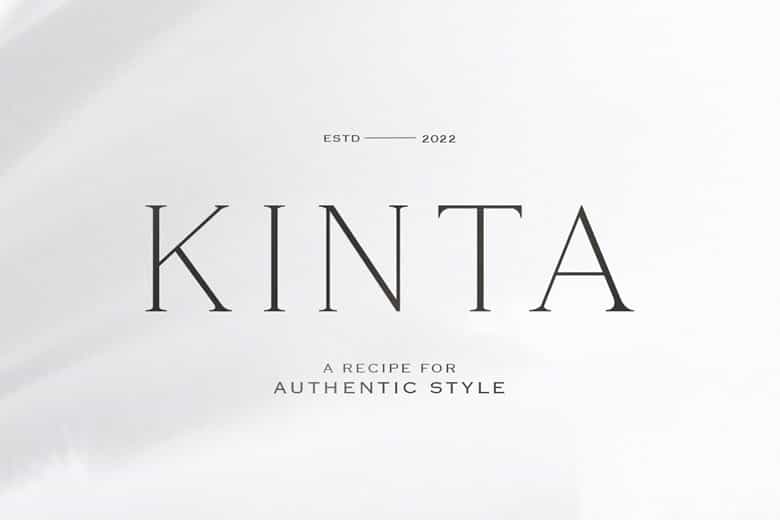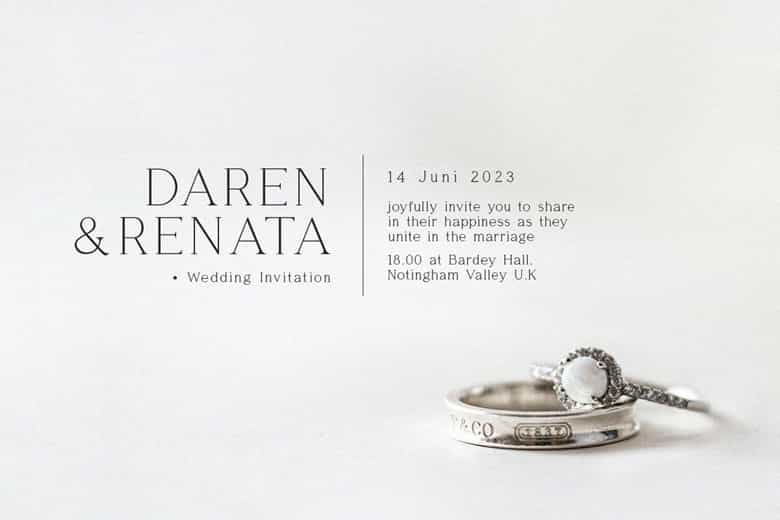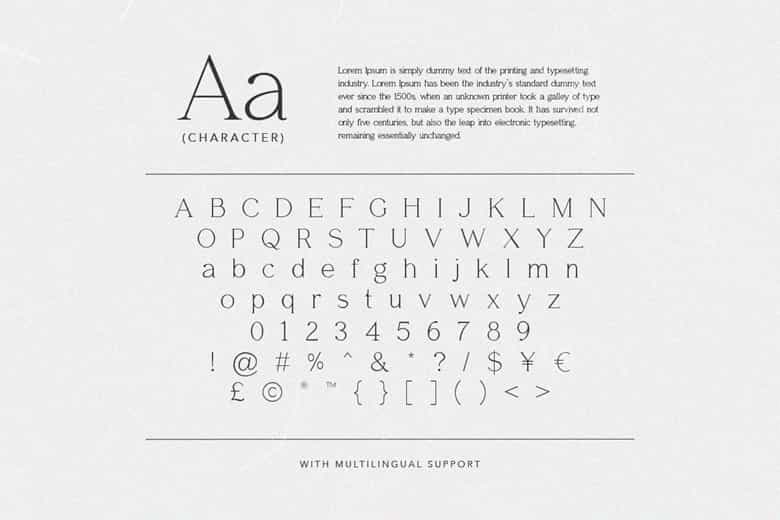
Kinta is a serif font with modern and authentic look. This font may have clear, simple lines, and little decoration and ornamentation, yet manage to give off the traditional feel of a serif font. This style of font could be perfect for products which aim to look and feel mature and credible, yet contemporary and clean.